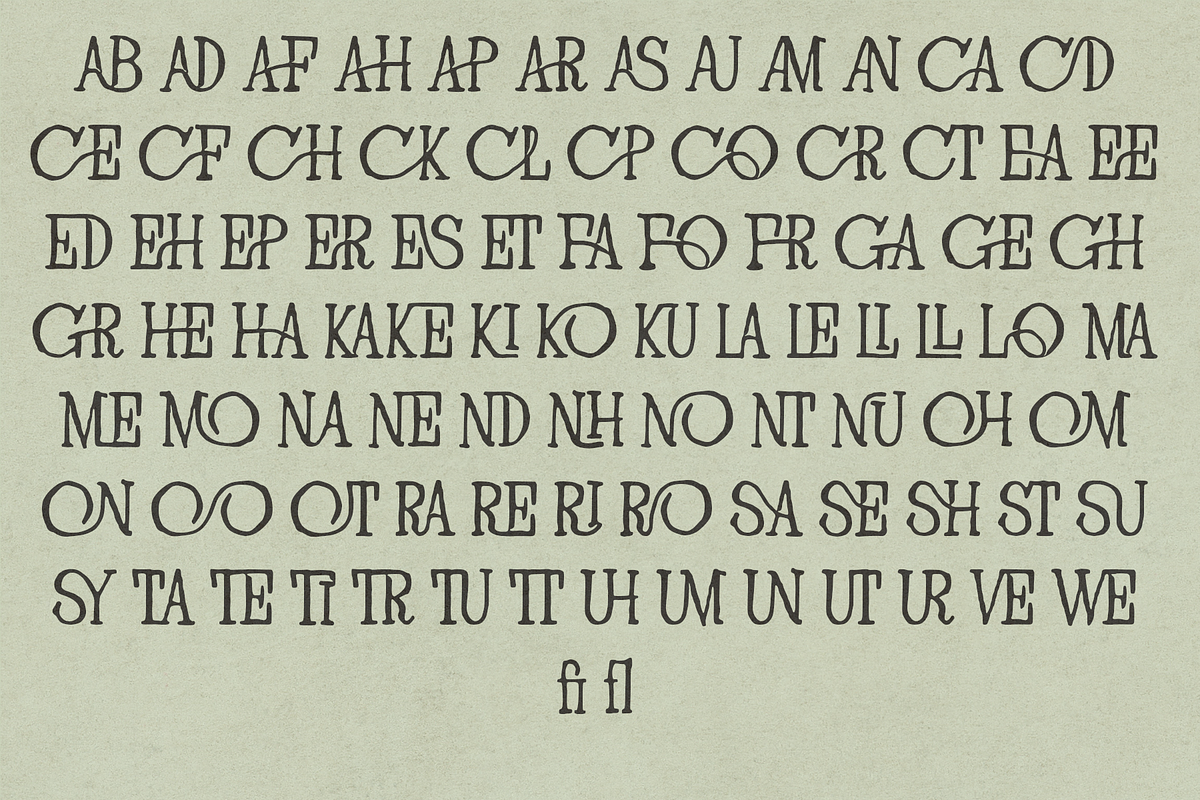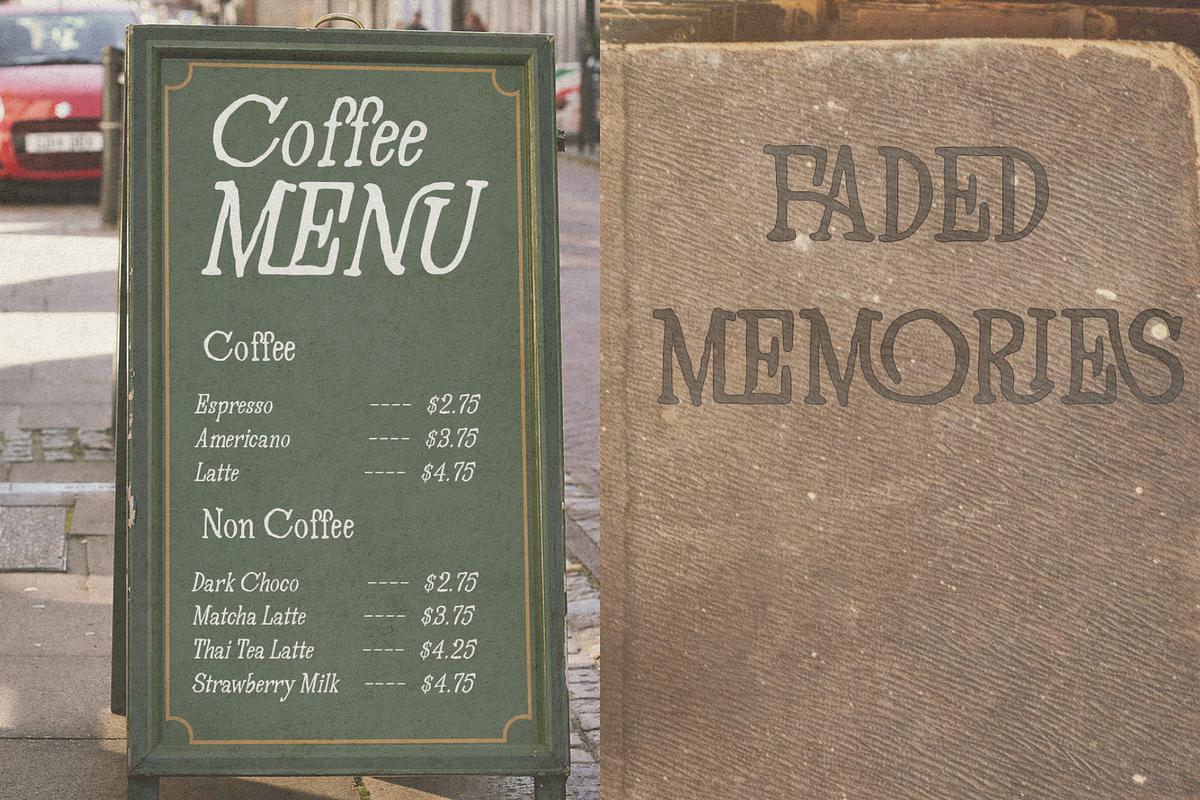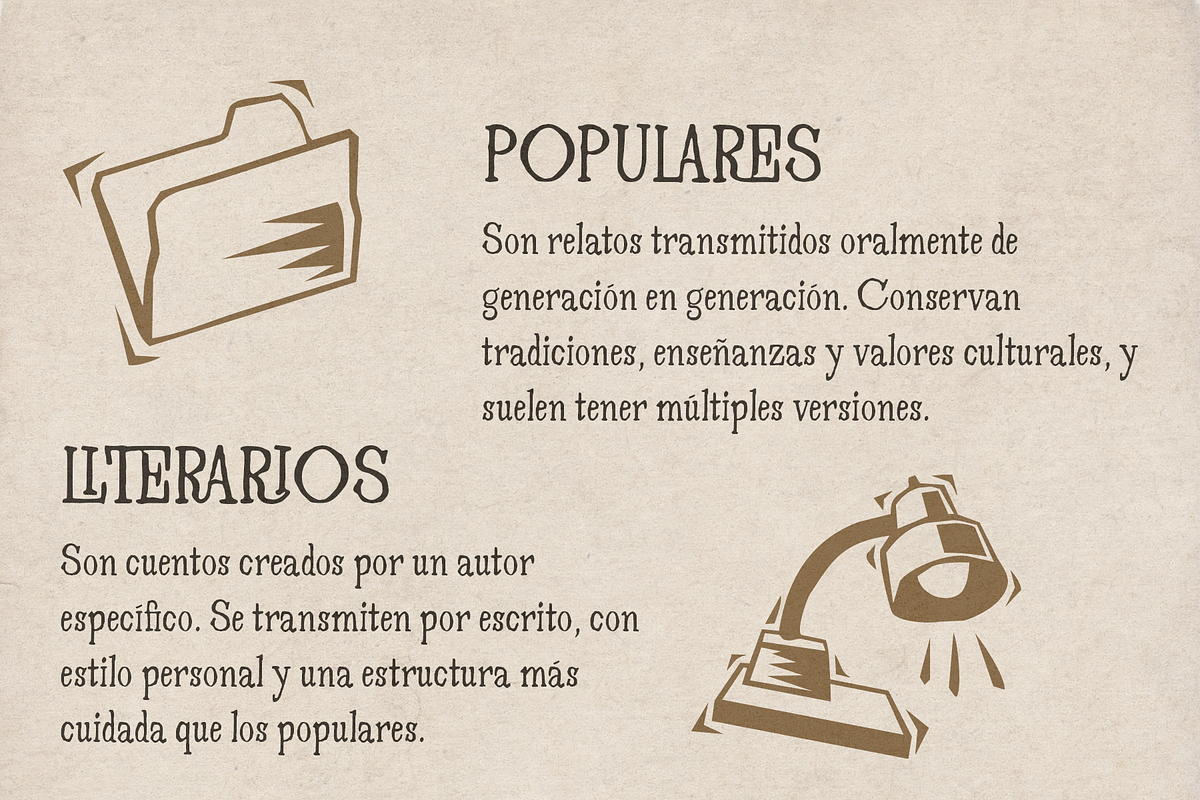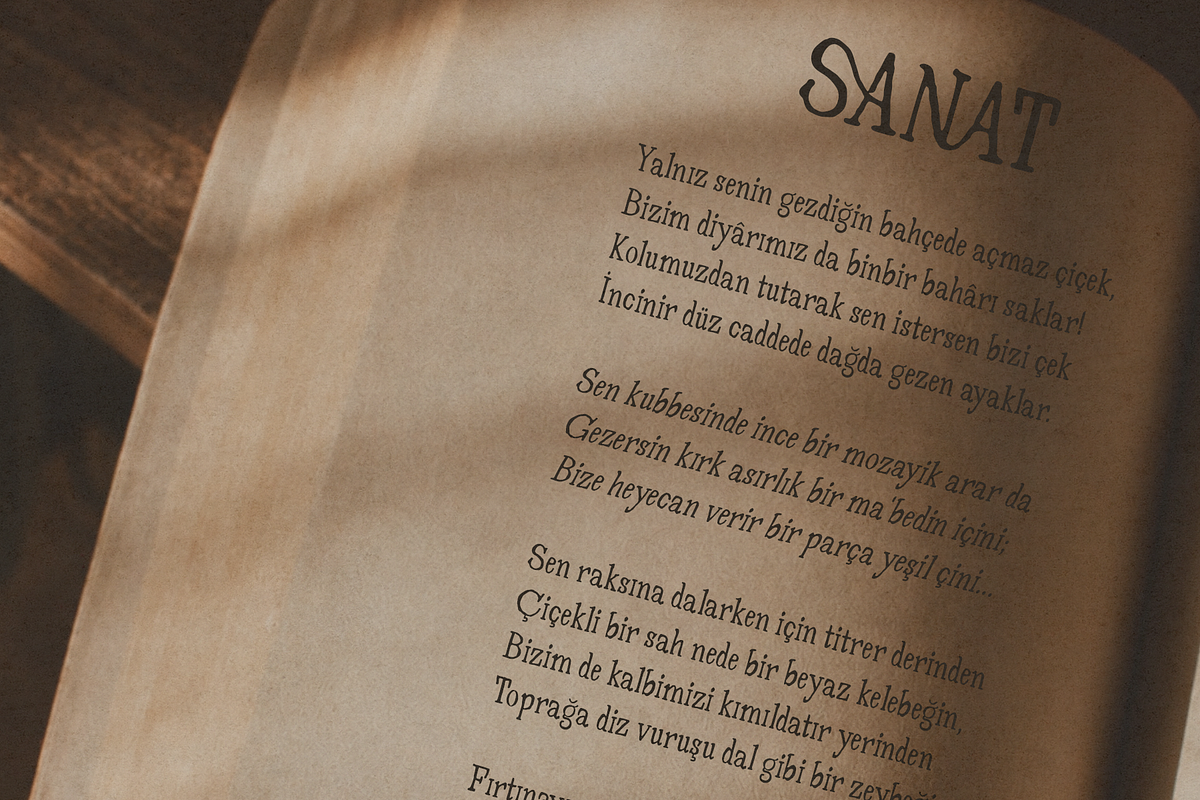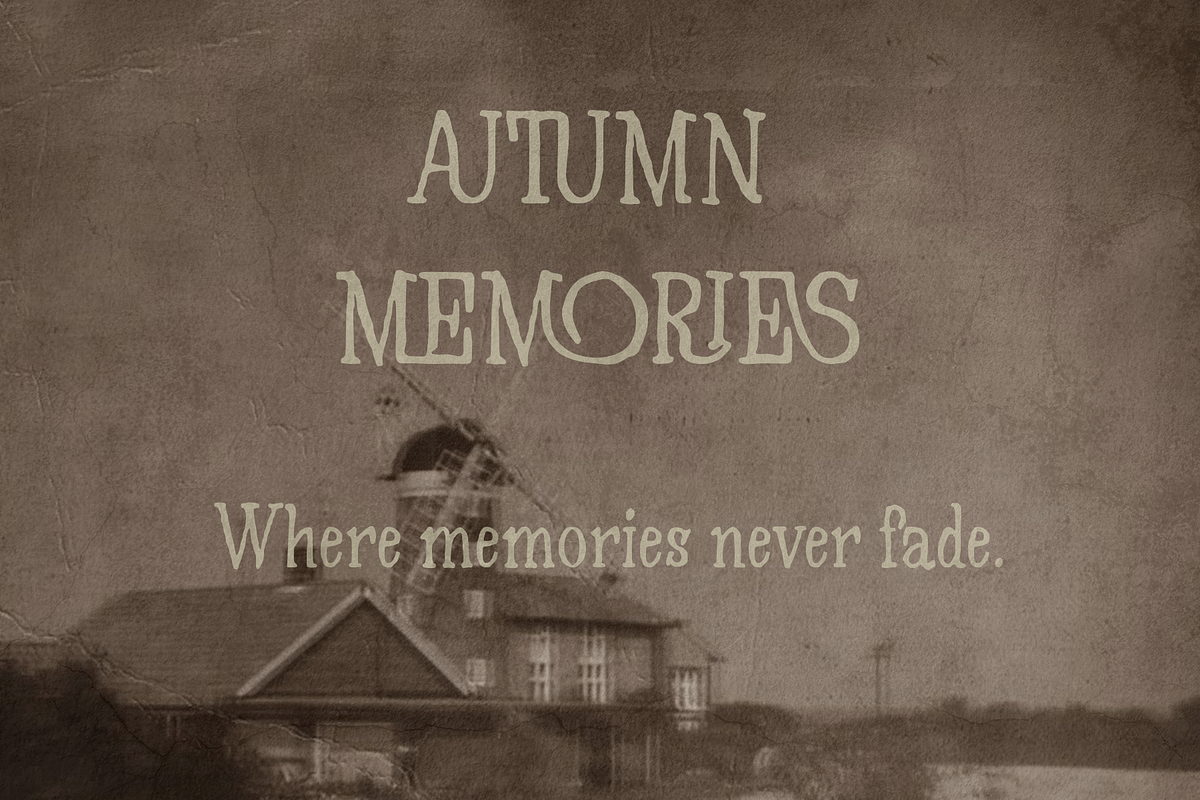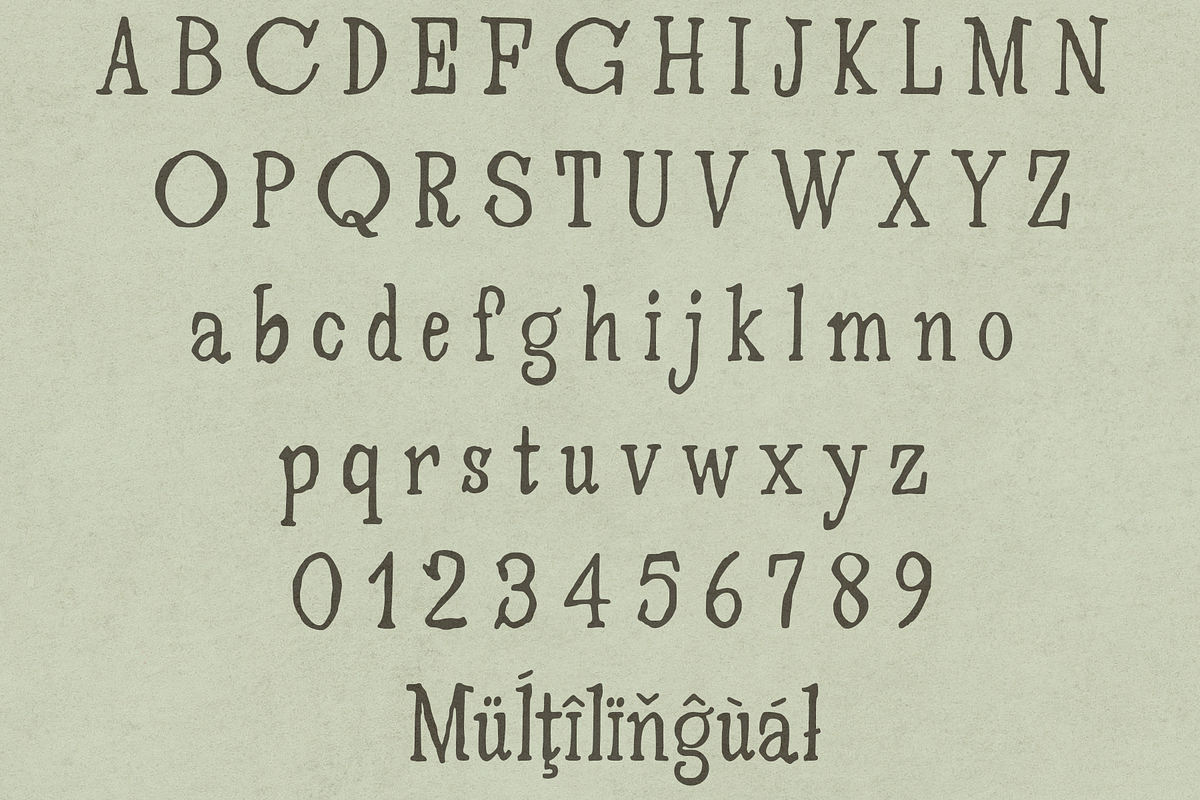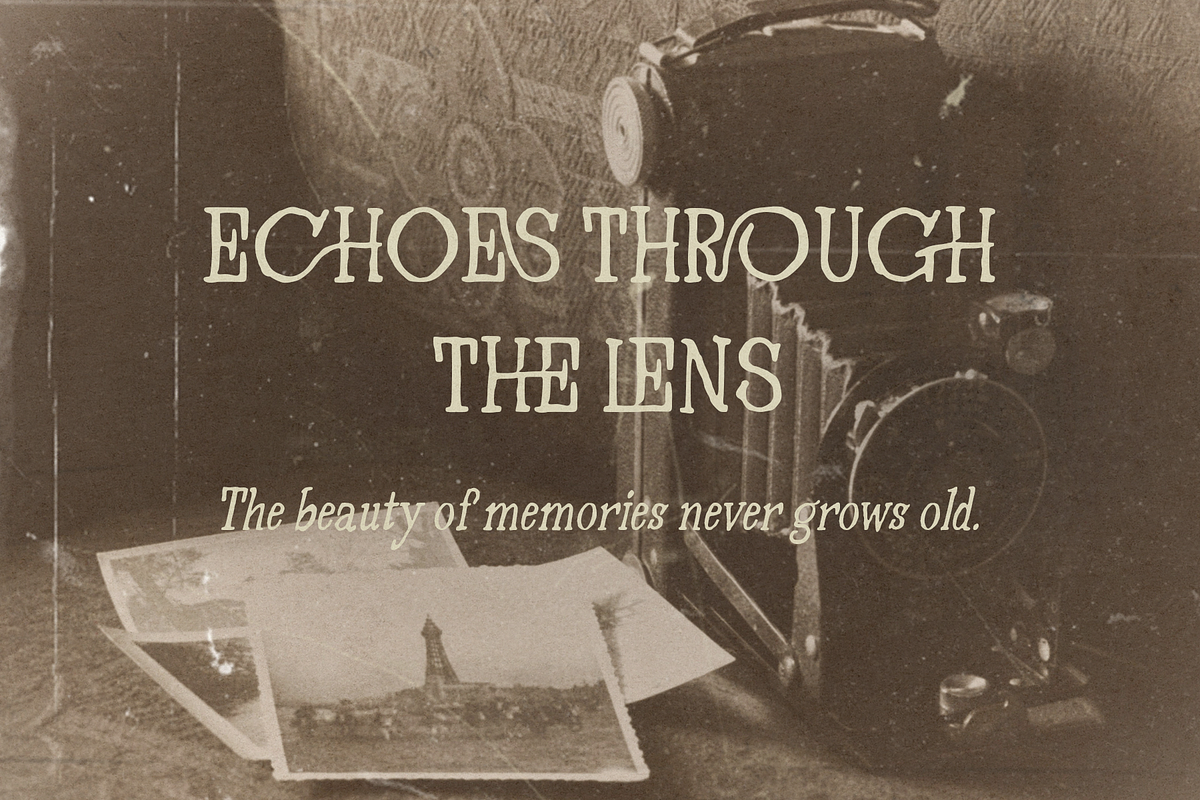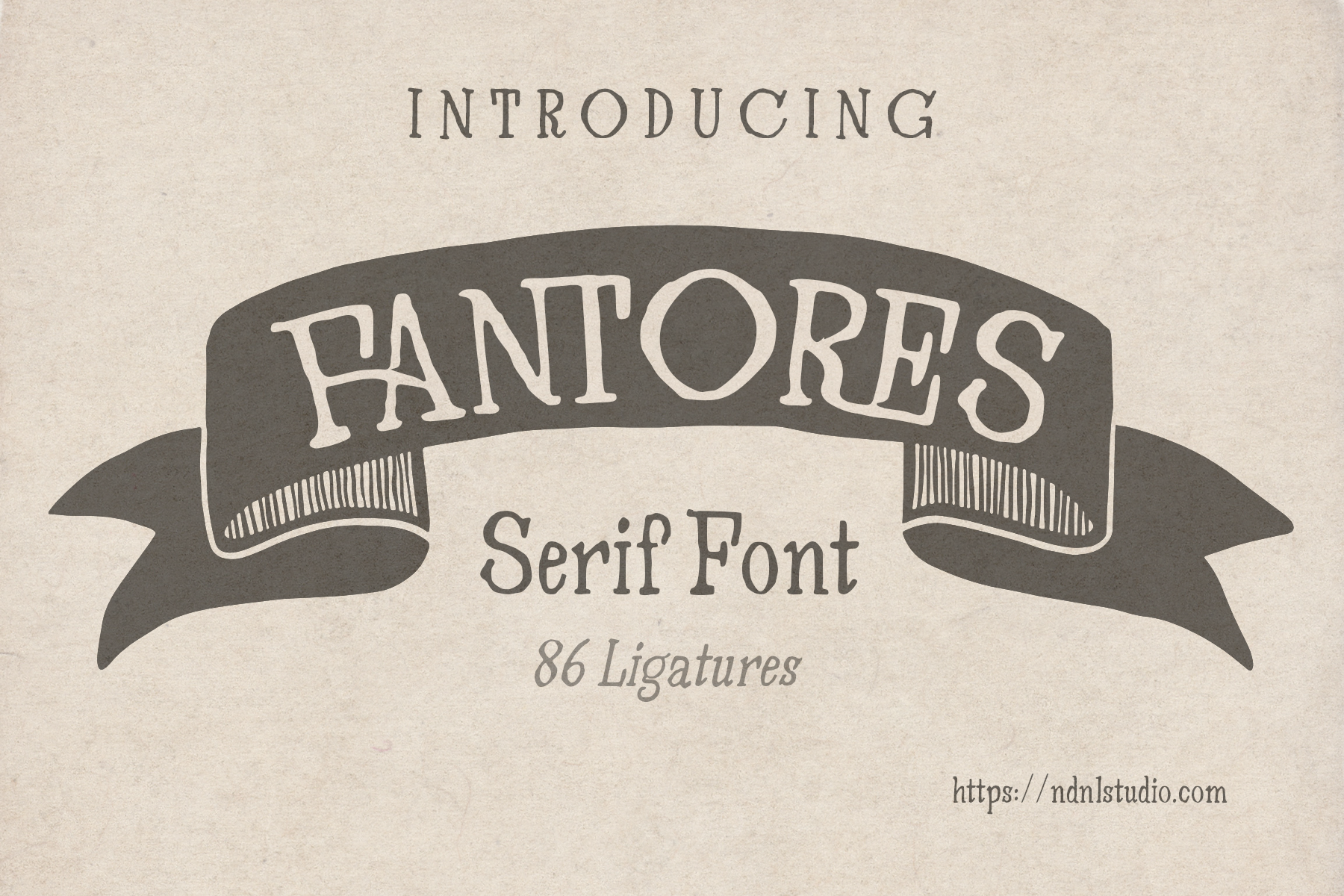
Fantores – Serif Font
Fantores is a distinctive serif font that blends a vintage-inspired character with a handcrafted, expressive appearance. Its bold yet slightly irregular letterforms give the typeface a nostalgic charm, making it feel authentic and full of personality.
With 86 ligatures, Fantores offers additional stylistic combinations that bring more variety and character to your typography. The font works beautifully for logos, vintage branding, badges, posters, packaging, labels, apparel designs, café and restaurant branding, and editorial projects.